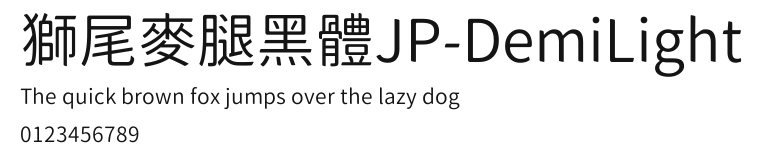
獅尾麥腿黑體JP-DemiLight Preview
• Font Name: 獅尾麥腿黑體JP-DemiLight
• Font Style: DemiLight
• Full Font Name: 獅尾麥腿黑體JP-DemiLight
About 獅尾麥腿黑體JP-DemiLight.ttf
獅尾麥腿黑體JP-DemiLight.ttf is a modern, elegant sans-serif font designed for ultimate readability and visual harmony. Perfect for branding, headlines, web design, and print materials.